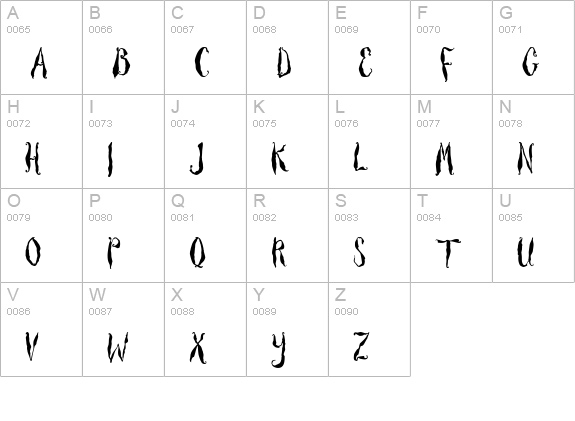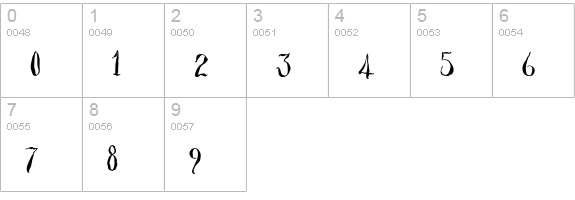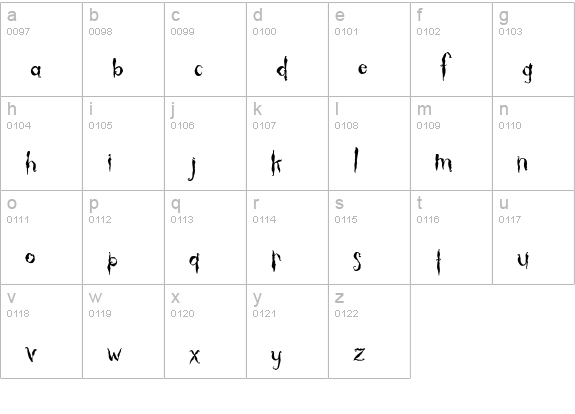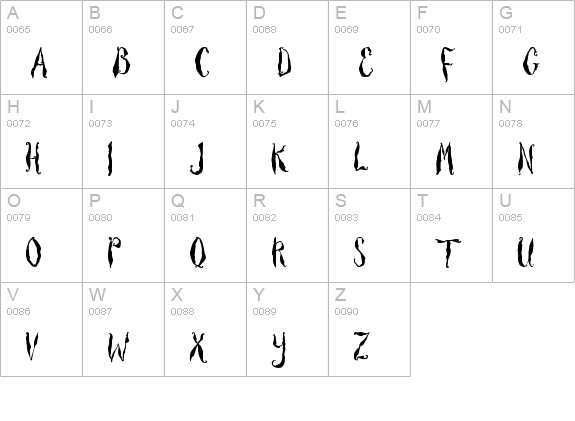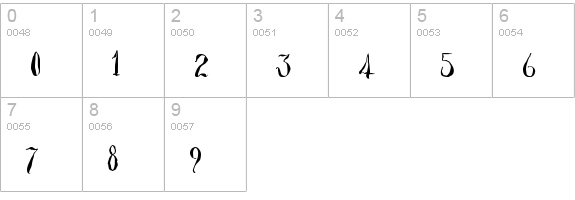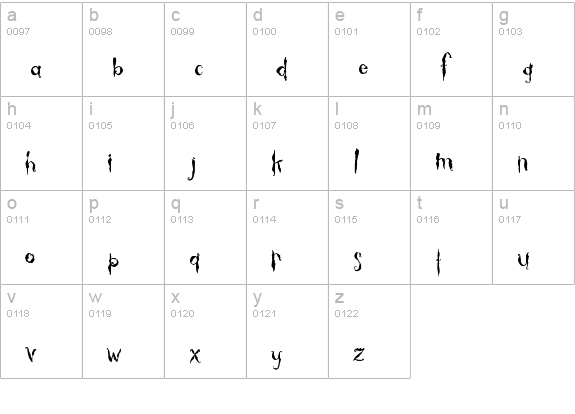
Thicket font is a stunning typeface that captures the essence of nature's beauty and the allure of organic forms. With its intricate curves and graceful lines, this font evokes a sense of enchantment and mystery, making it perfect for a wide range of creative projects. Designed with attention to detail, Thicket font brings a sense of elegance and sophistication to any design. Its delicate strokes and unique letterforms create a captivating visual experience, captivating readers and drawing them into a world of imagination. What sets Thicket font apart is not only its exquisite design but also its accessibility. This font is freely available to download at FontsMarket.com, allowing designers and creatives to effortlessly incorporate it into their projects. Whether you're designing a logo, a website, or a poster, Thicket font offers versatility and style, making it a valuable addition to any typographic arsenal. The sleek and stylish design of Thicket font makes it suitable for a wide range of applications. Its clean and legible characters ensure readability, while its artistic flair adds a touch of personality. Whether you're creating invitations, branding materials, or editorial layouts, Thicket font is sure to make a lasting impression. With Thicket font, you have the freedom to explore your creativity and bring your visions to life. Its versatility and beauty make it a go-to choice for designers looking to infuse their projects with elegance and charm. So why wait? Download Thicket font today from FontsMarket.com and unlock a world of possibilities for your designs.